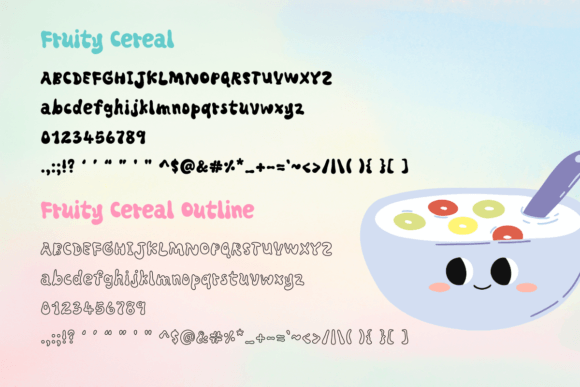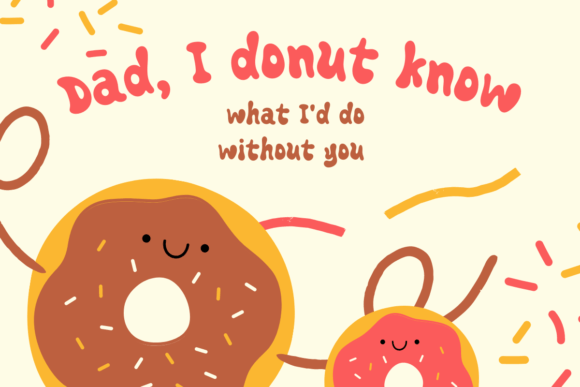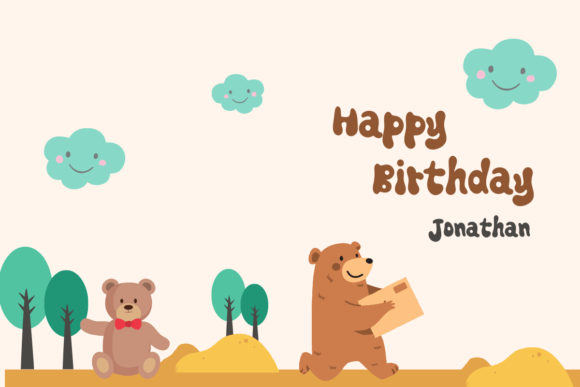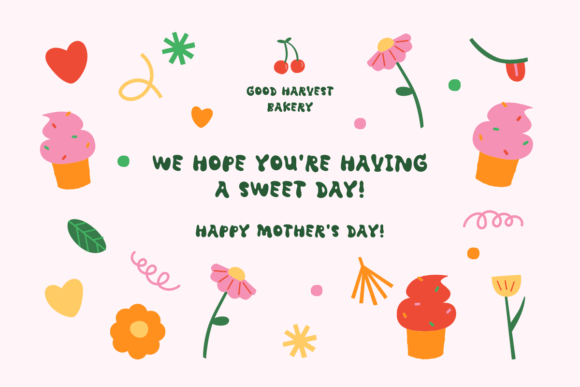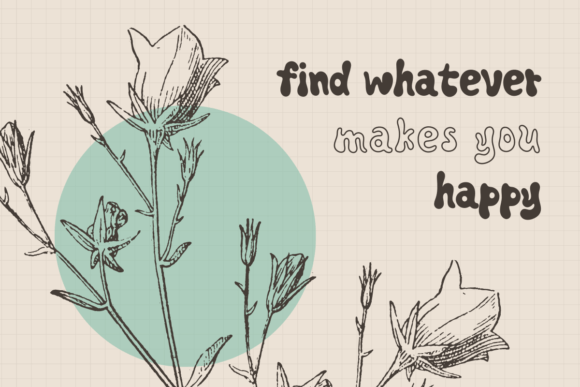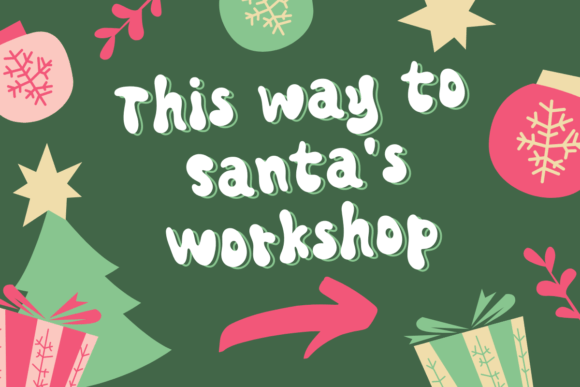
The Fruity Cereal Font: A Fun and Groovy Addition to Your Design Toolbox
I’ll never forget the time I was working on a project for a client’s children’s birthday party, and I just couldn’t find the right font to give it that playful, fun vibe. The design needed to be eye-catching and engaging, and I knew the font was the key. That’s when I stumbled upon the Fruity Cereal font, and it instantly brought my design to life! If you’re a designer, crafter, or creative hobbyist looking for a font that adds character to your work, you’re in the right place.
An Honest Review of Fruity Cereal
- ✨ The bold and playful style of Fruity Cereal is perfect for creating eye-catching artwork, posters, handcrafted items, social media content, and packaging that appeals to the audience.
- ✅ The font is highly versatile and can be used for a wide range of design projects, from kids’ party invitations to branding materials for a fun, youthful business.
- 💡 The unique character set and OpenType features make it easy to add a personal touch to your designs.
While Fruity Cereal is an amazing font, there are a few things to keep in mind:
- ⚠️ The font may not be the best choice for body text or reading-heavy content, as it’s quite bold and playful.
- 🤔 Some users have reported issues with kerning and spacing, but these can usually be adjusted in design software.
The Backstory of Fruity Cereal
Fruity Cereal was designed with one goal in mind: to create a fun, groovy font that adds character to any design. The designer, inspired by the colorful world of breakfast cereals, set out to create a font that’s both playful and bold. The result is a font that’s perfect for designers, crafters, and creative hobbyists who want to add a little excitement to their work.
Q: What type of projects is Fruity Cereal best suited for?
A: Fruity Cereal is perfect for designs that require a playful, eye-catching font, such as kids’ party invitations, posters, social media content, and packaging.